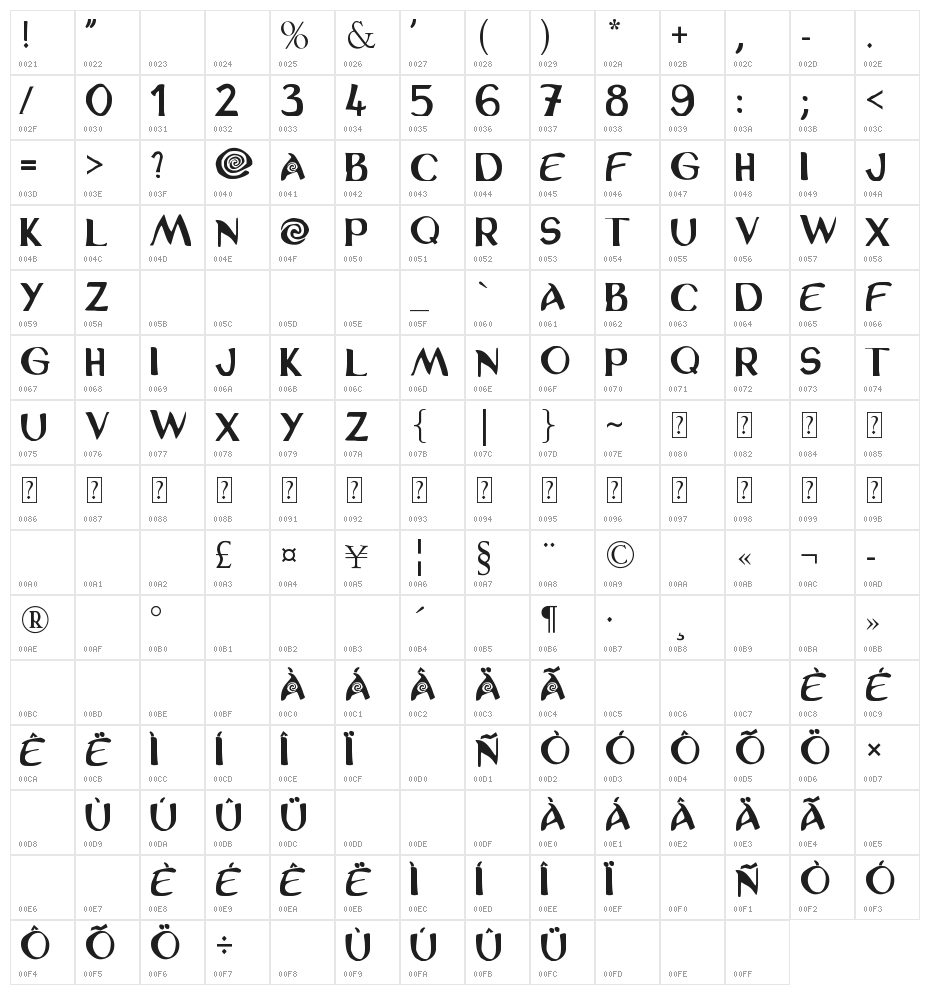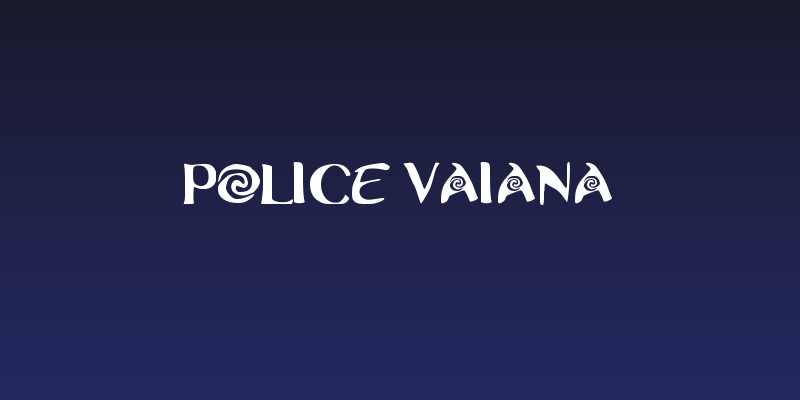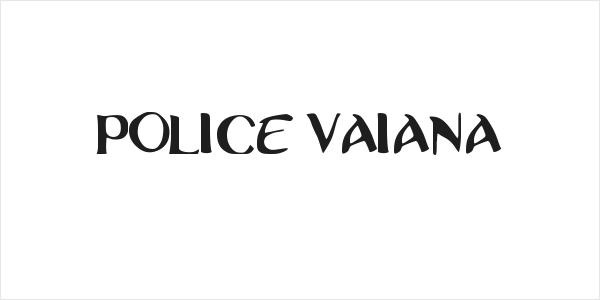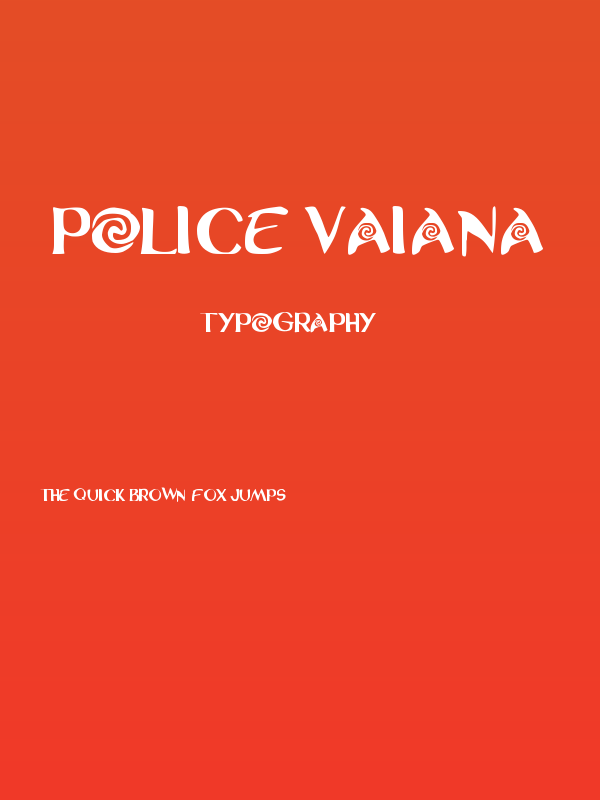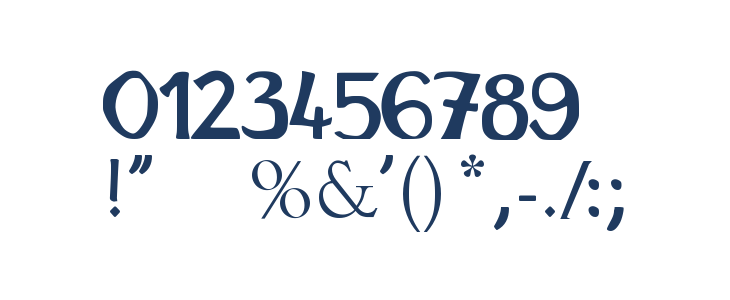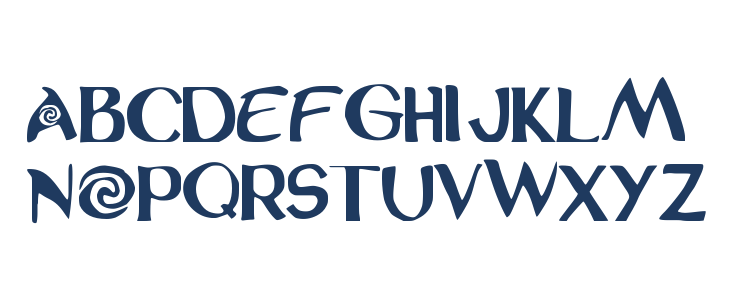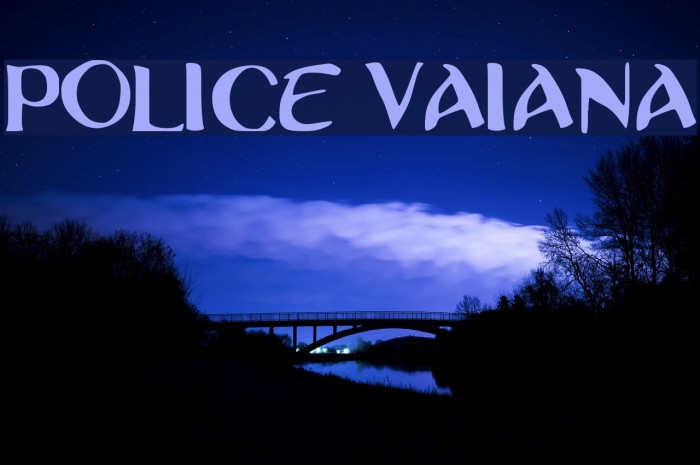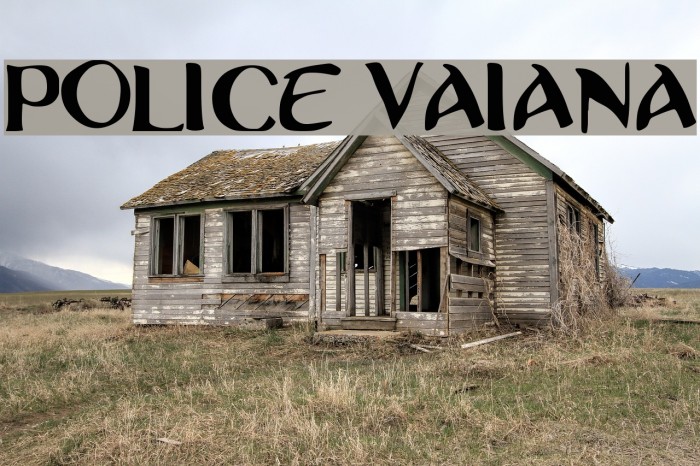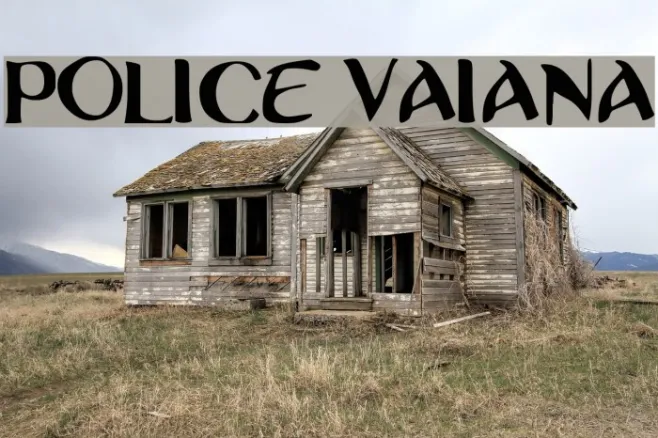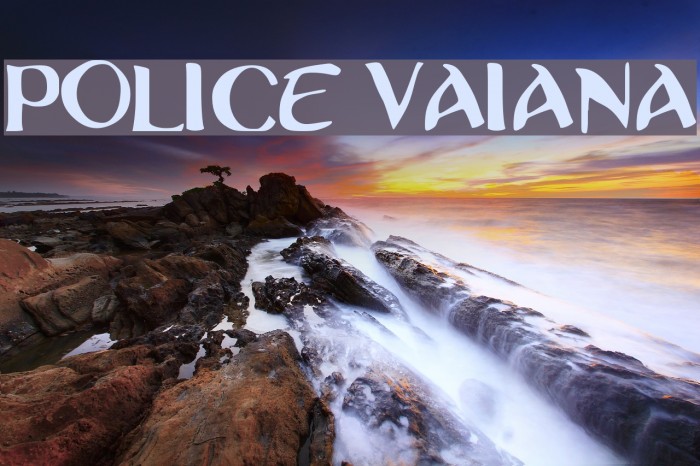
Police Vaiana Font
Police Vaiana Description
This font features a playful and whimsical design, characterized by its bold and curvy letterforms. The uppercase letters are distinct with unique elements, such as the spiral in the letter 'O' and the sharp, angular serifs. The lowercase letters maintain a consistent style, complementing the uppercase with their rounded and flowing shapes. The numbers are bold and easily readable, while the special characters add a touch of flair with their decorative elements. Overall, this font exudes a sense of fun and creativity, making it ideal for projects that require a lively and engaging typeface.
| Proposed Projects | Ideal for children's books, playful branding, party invitations, and creative posters. |